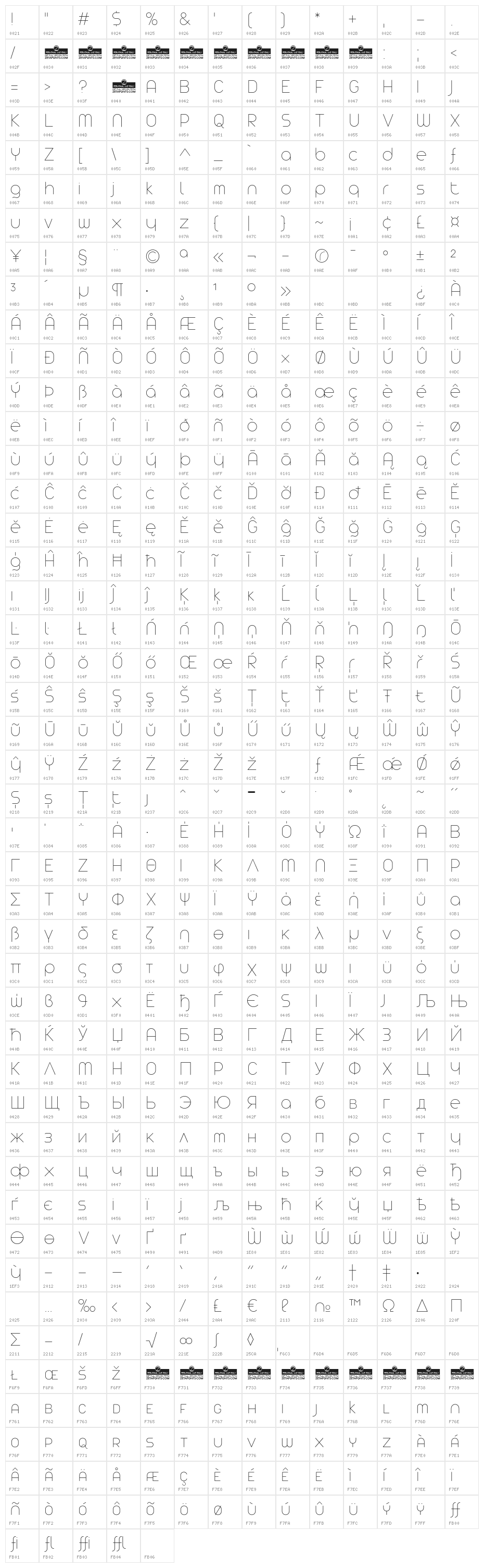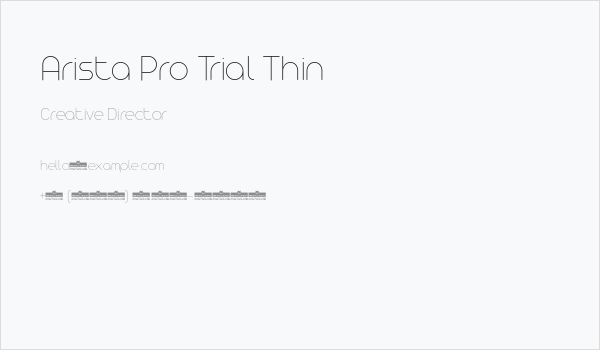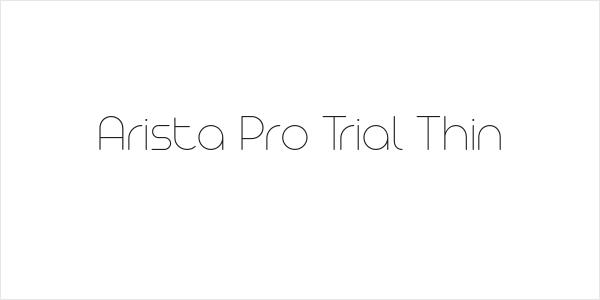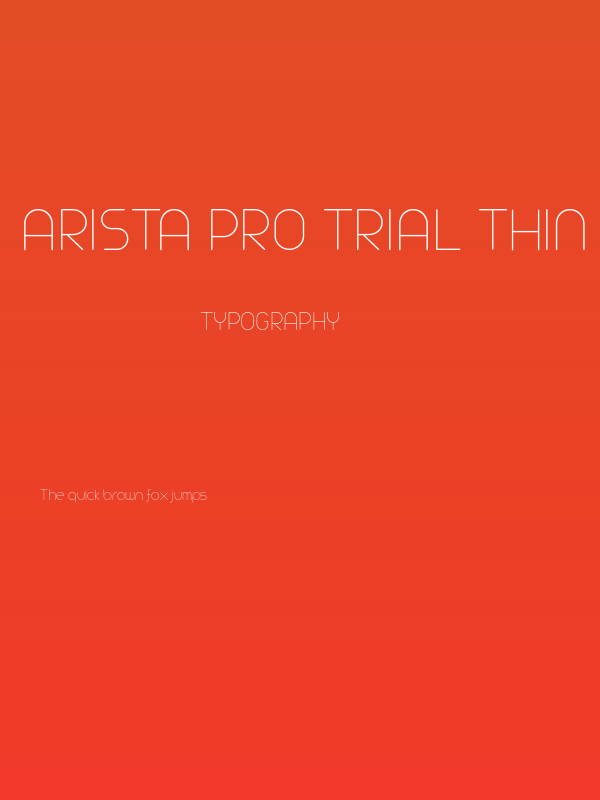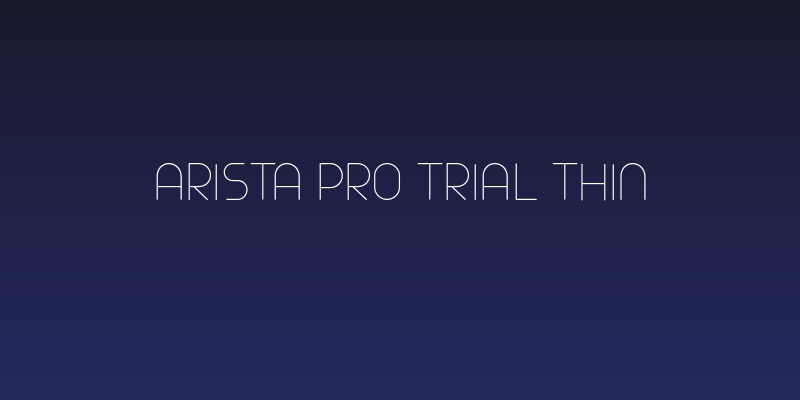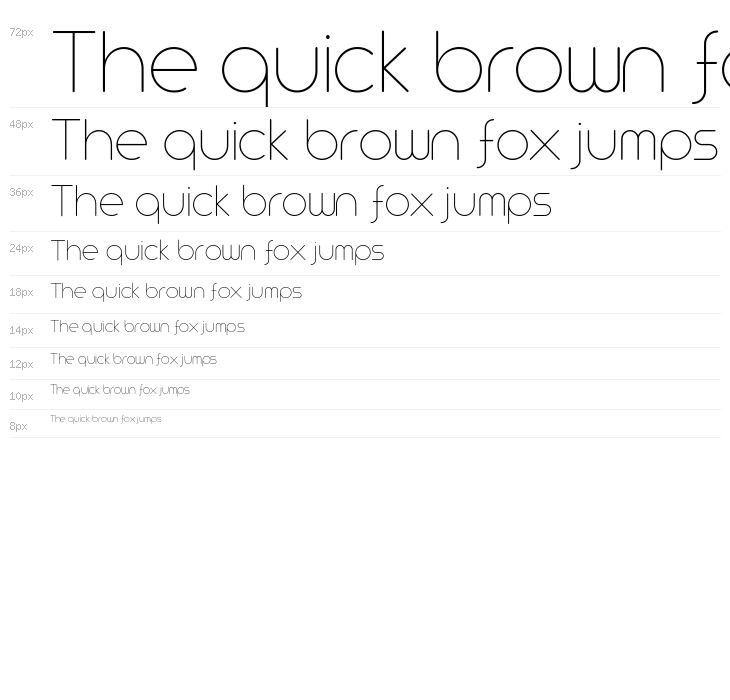
Arista Pro Trial Thin Font
Arista Pro Trial Thin Description
This font features a clean, minimalist design with thin, uniform strokes that give it a modern and elegant appearance. The characters are well-proportioned and maintain a consistent line weight throughout, contributing to a sleek and sophisticated look. The uppercase and lowercase letters are designed with a geometric precision, offering a sense of balance and harmony. The numerals and special characters follow the same design principles, ensuring a cohesive visual style. This font's simplicity and clarity make it highly versatile for various design applications.